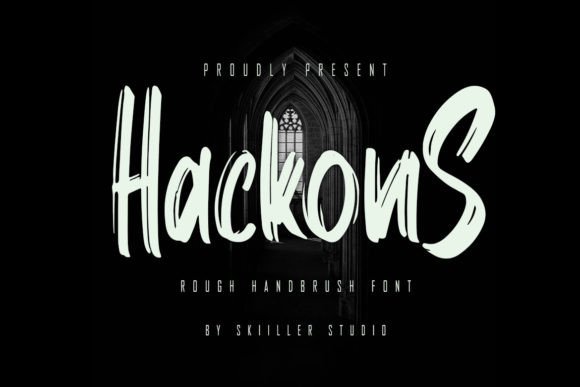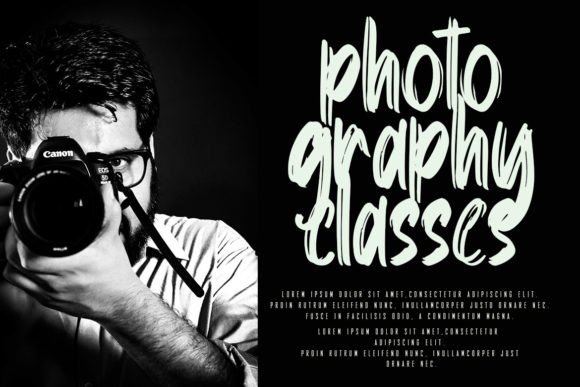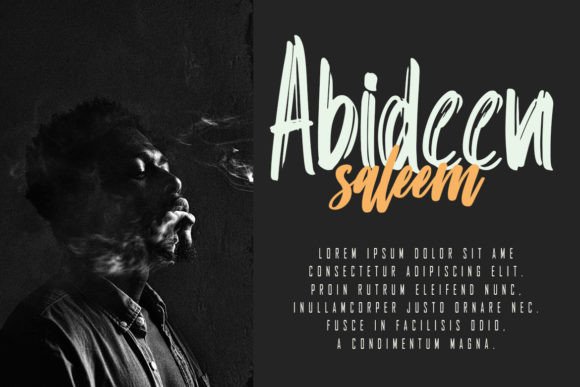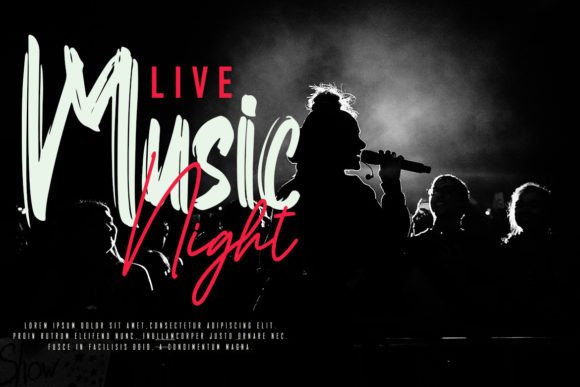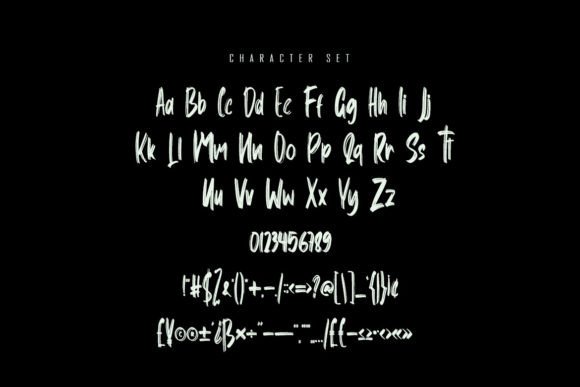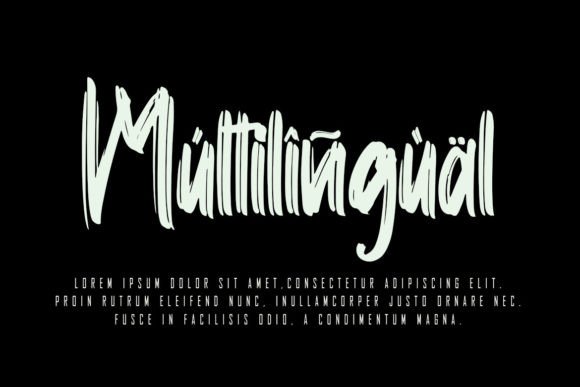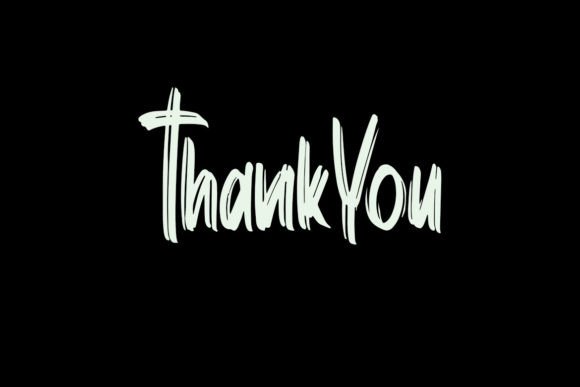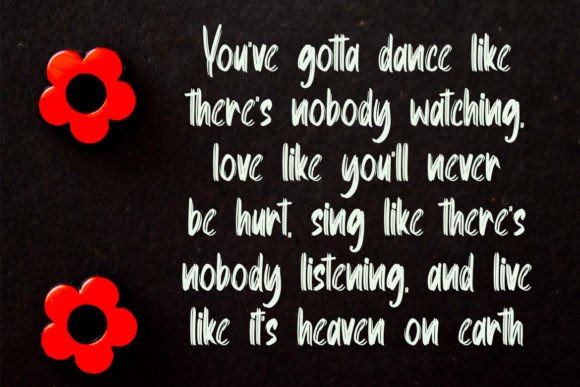
Hackons Font
About Hackons Font
Hackons font is a modern handwritten brush font designed to bring strength and style to your creative projects. When you download Hackons font, you gain access to a typeface that feels confident, dynamic, and full of urban character. This font is ideal for designers who want to make bold statements with their headlines, logos, or branding.
Stylish and Modern Design
Hackons font features brush strokes that combine a handwritten feel with contemporary design. This gives it a raw yet polished look. Whether you use Hackons for logos, headlines, or promotional materials, it adds a strong, energetic vibe that grabs attention. Download Hackonsfont to give your projects that modern edge.
Perfect for Headlines and Logotypes
This font is crafted specifically for impactful use in headlines and logotypes. Its bold strokes and dynamic flow ensure readability while expressing personality. Hackons font is a fantastic choice when you want your designs to stand out with an urban, stylish touch.
Versatile and Easy to Use
Enhance Your Creative Work
With Hackonsfont, you can add character and flair to your designs. Download Hackonsfont today to unlock a fresh, modern look that elevates your creative ideas. Whether you’re designing for digital or print, this font offers versatility and style.